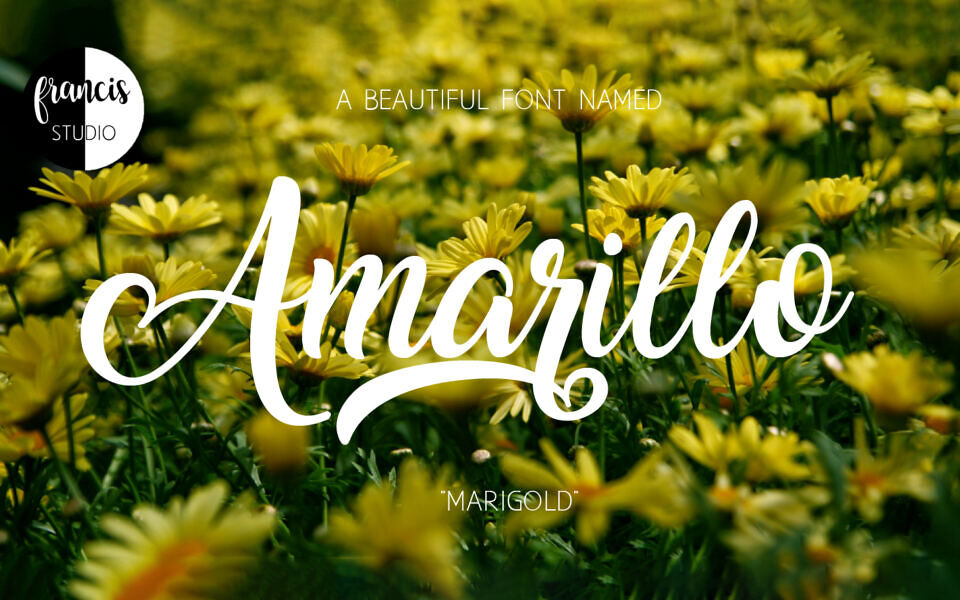
Amarillo, designed by Francis Studio, is an elegant, free-flowing calligraphy script that exudes a sophisticated, handmade charm.
Its fluid, sweeping strokes and graceful curves make it an excellent choice for wedding invitations, romantic branding, greeting cards, or any project requiring a touch of refined, artistic elegance. Highly popular for personal design work, it offers a warm, personable aesthetic that bridges the gap between classic penmanship and modern digital design.